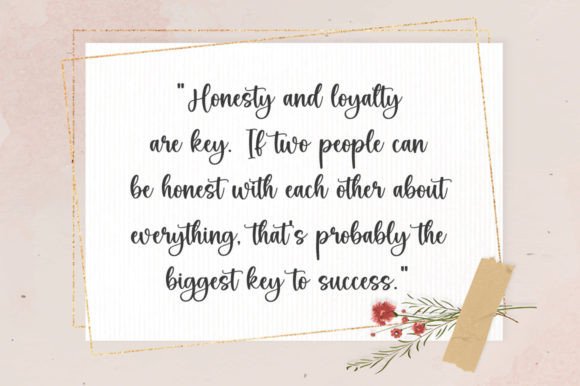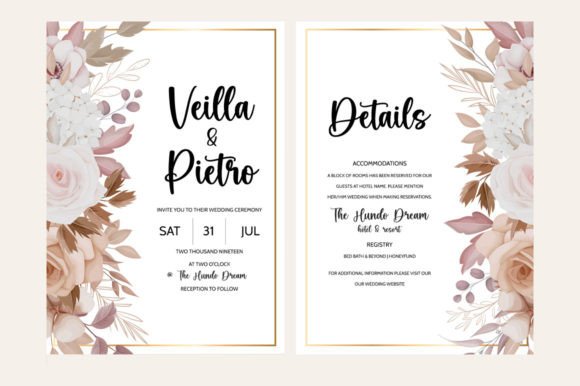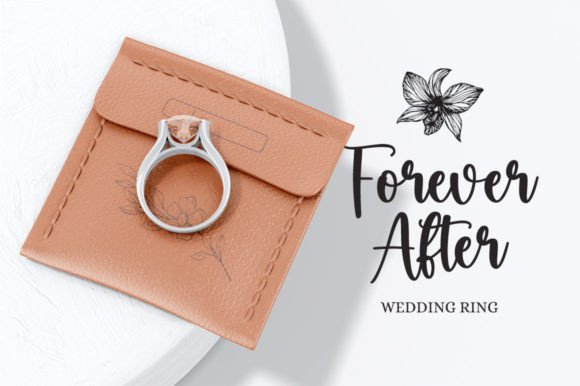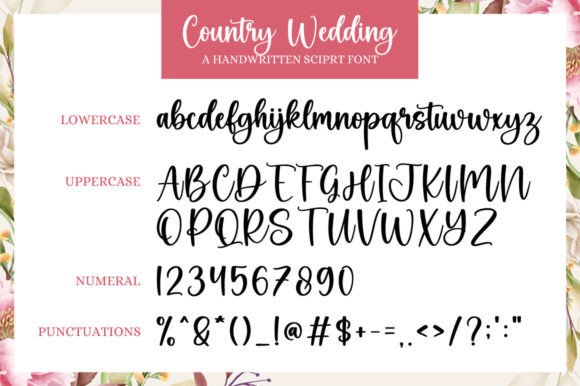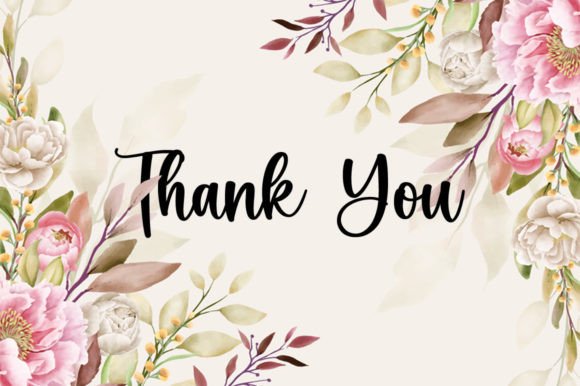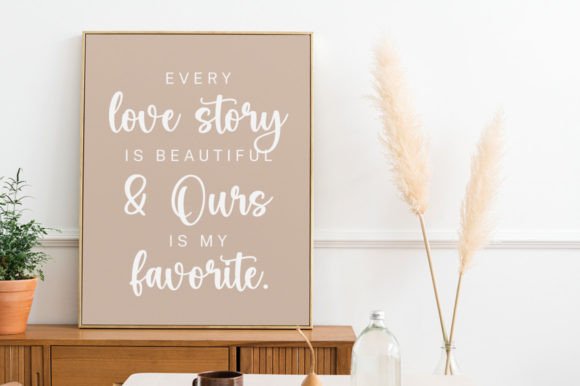
Country Wedding Font
About Country Wedding Font
Country Wedding is a delicate and refined script font that emanates sophistication and elegance. Its stylish characters make this font the perfect match for any project.